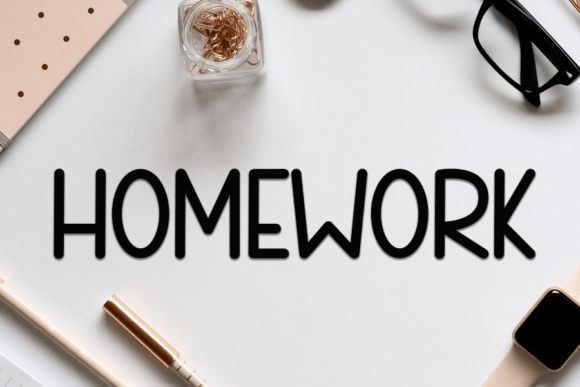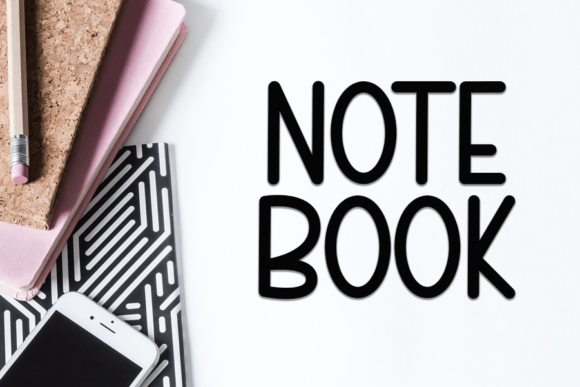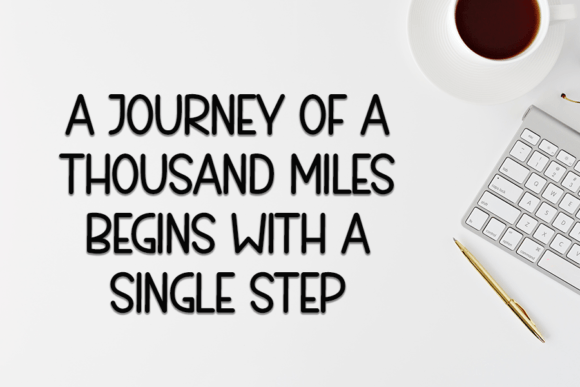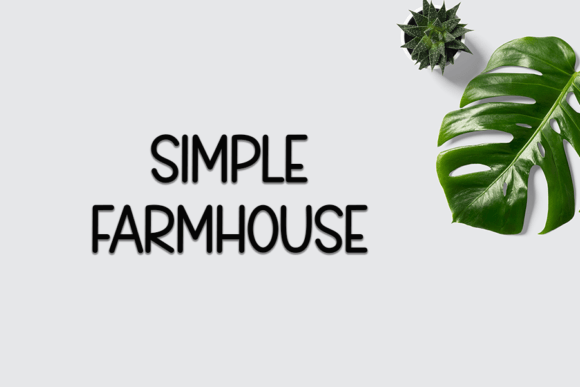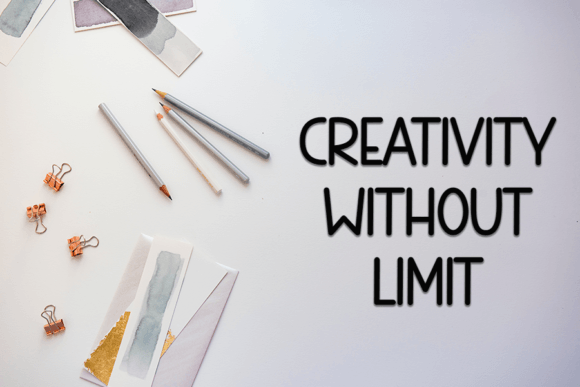
About Workspace Font Download
The Workspace Font Download is a cool and modern handwritten script designed to bring clarity, warmth, and creativity to your projects. With its simple yet stylish handwritten flow, this font is versatile enough for both personal and professional use. Whether you are designing invitations, presentations, or digital graphics, Workspace ensures your work stands out with clean handwritten charm.
A Handwritten Script with Modern Energy
The Workspace script font combines casual handwritten curves with a refined structure. As a result, it feels approachable, professional, and versatile. Furthermore, it transitions smoothly from delicate stationery to bold displays, which makes it a valuable tool for every designer.
Handwritten fonts always add a heartfelt, personal touch. The Workspace Font is ideal for wedding invitations, thank you notes, birthday cards, and seasonal greetings. Because of its stylish handwritten personality, every design feels polished and warm. In addition, it ensures that your stationery projects leave a lasting impression.
Branding and Logo Design with Workspace Font
Typography plays a vital role in building brand identity. The Workspace handwritten font is excellent for boutique logos, packaging, and promotional campaigns. Its modern handwritten style communicates professionalism while maintaining creativity. Therefore, it works especially well for lifestyle, fashion, and creative industries.
Posters, Titles, and Editorial Design
The Workspace Font Download also shines in posters, magazines, banners, and book covers. It stays legible at any size while adding handwritten beauty. Consequently, it is a reliable choice for designers seeking creativity and readability combined.
In today’s digital space, fonts must adapt across platforms. The Workspace typeface integrates seamlessly into Instagram graphics, Pinterest pins, YouTube thumbnails, and blogs. Because of its casual yet professional rhythm, it ensures digital projects look stylish, engaging, and modern.
Why Designers Choose Workspace Typeface
Designers value fonts that balance clarity with style. The Workspace handwritten script keeps its modern handwritten appeal while remaining easy to read. This makes it suitable for professionals as well as hobbyists. Moreover, its timeless character ensures it remains trendy for years to come.
Add Modern Charm to Your Projects Today
If you’re looking for a handwritten script that feels cool, modern, and versatile, the Workspace Font Download is the perfect choice. From greeting cards and invitations to posters, branding, and digital projects, it enriches every design with handwritten creativity. Finally, download Workspace today and let your projects shine with elegance and personality.